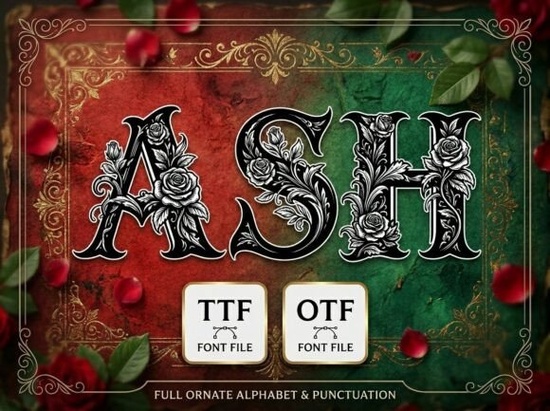
If you've been searching for a decorative serif font that blends Victorian elegance with botanical artistry, the Ash Font is worth a close look. This premium typeface wraps classic serif letterforms in hand-etched roses, curling vines, and detailed leaves, giving every character the feel of a vintage engraving. Whether you're designing luxury labels, wedding stationery, or dark-romance social media graphics, Ash brings a rich, heritage-inspired personality to the table.
What Makes Ash Different from Other Decorative Fonts?
Most ornamental typefaces lean heavily in one direction either they look clean and modern or they go full vintage without much nuance. Ash sits in a distinct middle ground. The serif bones are strong and readable, with an academic weight that gives body text presence. But the real show is in the botanical details woven through each letter. Roses, leaves, and tendrils are etched directly into the letterforms rather than layered on top, so the ornaments feel like part of the typeface itself.
That organic integration makes Ash work well at large display sizes where the details can breathe, while still holding up in shorter headlines where you need impact without clutter.
Who Is This Typeface Designed For?
Ash was built with specific creative needs in mind. Here's where it tends to shine:
- Luxury spirits and wine labels the botanical engraving style pairs naturally with premium packaging
- Boutique bridal branding the romantic serif structure fits invitations, save-the-dates, and monogram designs
- High-end perfume and cosmetics packaging the ornate details signal sophistication without feeling heavy
- Dark-romance aesthetic projects moody mood boards, book covers, and gothic-inspired social media headers
- Print-on-demand sellers especially those creating vintage-themed apparel, wall art, or stationery products
If your work involves decorative fonts for branding or product design, Ash fills a niche that simpler typefaces can't quite reach.
How Does Ash Compare to Other Ornamental Typefaces?
It helps to think about Ash in context with other popular decorative options. If you need something with a sportier, retro feel, the checkered varsity typeface brings a completely different energy think letterman jackets and collegiate branding. For projects that call for something playful and lighthearted, a whimsical display font with rounded, friendly shapes might be a better fit.
Ash, on the other hand, leans into heritage craftsmanship. It's the typeface you reach for when your design needs to feel handcrafted, timeless, and a little mysterious. The botanical detailing gives it a natural warmth that purely geometric or abstract display fonts lack.
What Design Projects Work Best with Victorian Botanical Lettering?
Victorian-inspired typography has seen steady demand across multiple markets. Here are some specific uses where botanical serif fonts like Ash perform well:
- Wedding and event stationery menus, programs, table numbers, and signage
- Etsy and POD product designs t-shirts, tote bags, mugs, and art prints with vintage themes
- Social media templates Instagram headers, Pinterest pins, and story backgrounds with a romantic or gothic mood
- Book and album covers especially in the dark-romance, fantasy, or period fiction genres
- Small business branding florists, boutique shops, candle makers, and artisan bakeries that want a handcrafted look
The key with any ornate typeface is pairing it thoughtfully. Ash works best alongside simple sans-serif body copy and clean layouts that give the botanical details room to stand out.
Tips for Working with Highly Decorative Typefaces
Fonts like Ash require a bit more attention than standard display type. A few practical things to keep in mind:
- Use larger sizes the rose and vine details get muddy below about 30pt, so stick to headlines and hero text
- Limit your color palette two or three colors max so the letterforms stay readable
- Pair with simple fonts a clean sans-serif for body text prevents visual overload
- Test in context mock up your design before finalizing to check legibility at the intended size
You can explore the full character set and see more examples on the Ash product page for additional preview images and details.